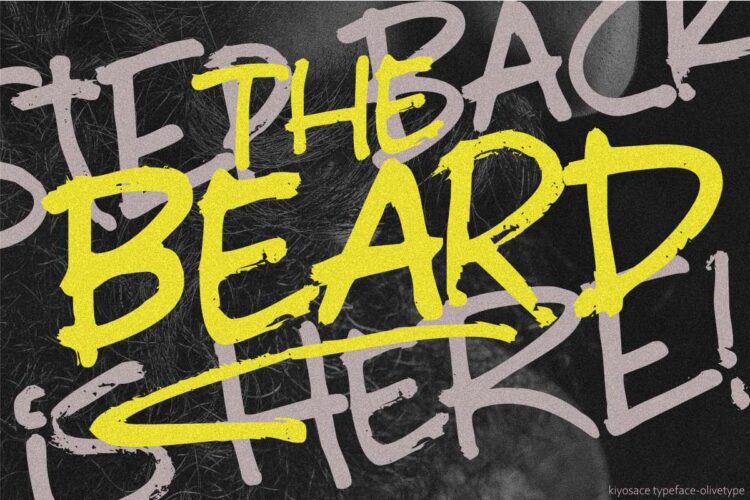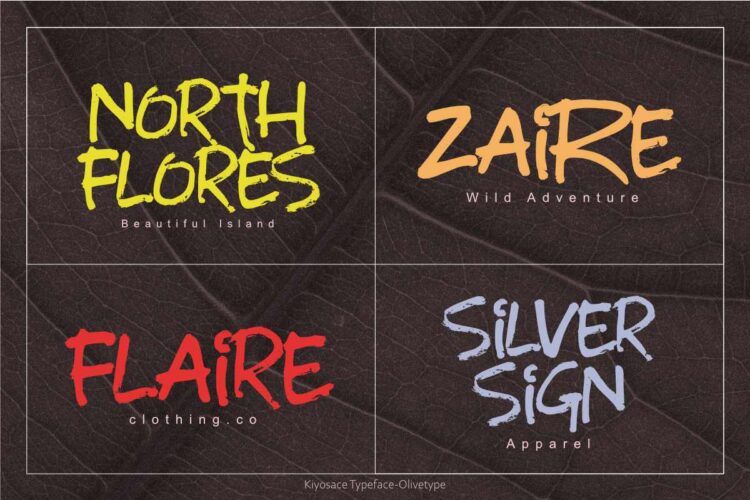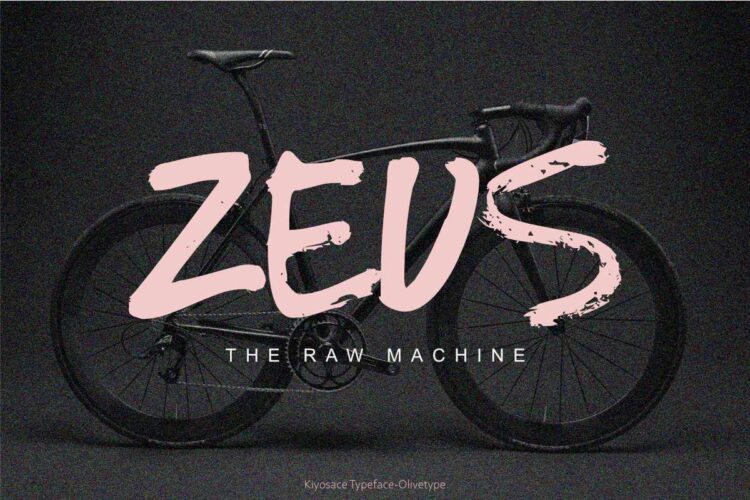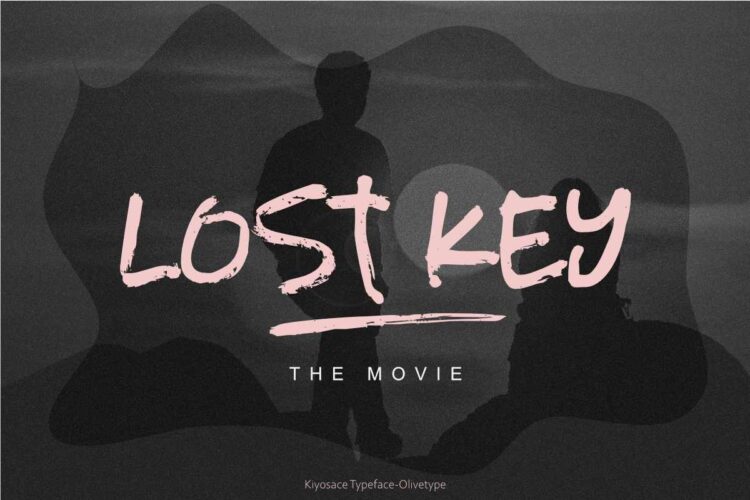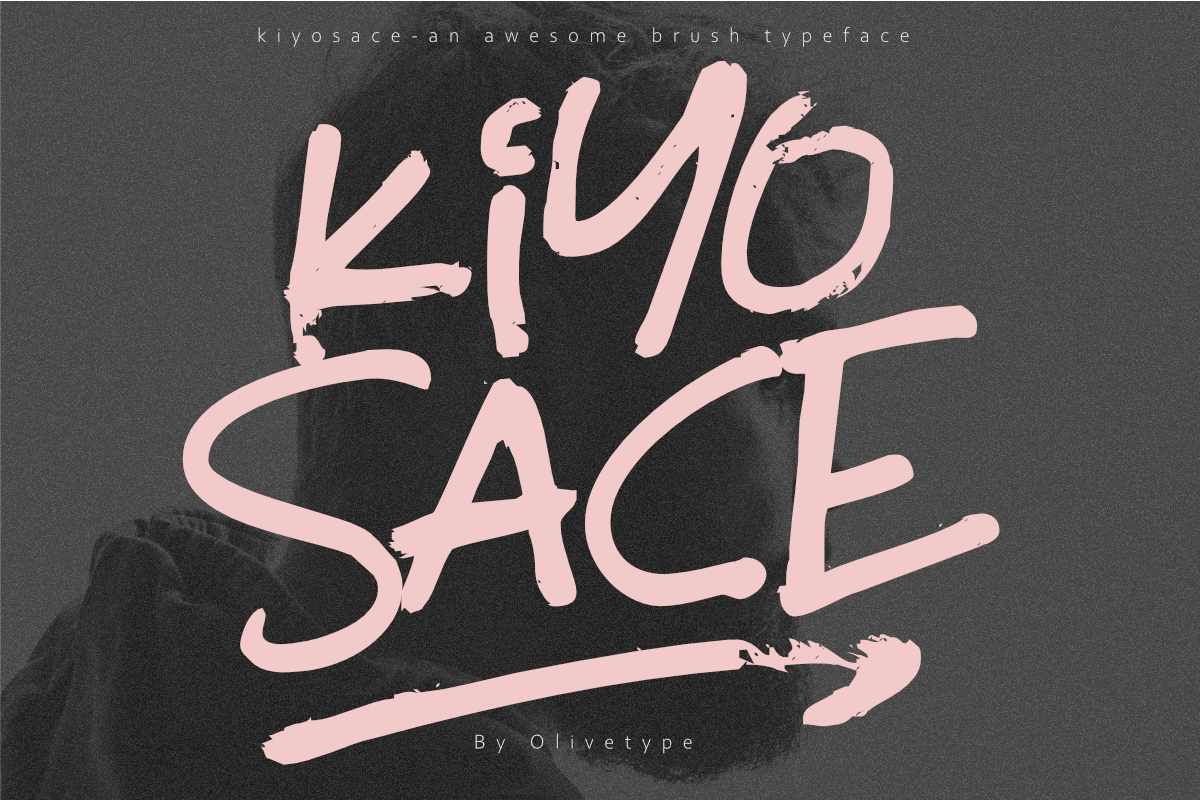
Kiyosace is an authentic brush font with cool textures and a natural feel. It’s perfect for posters, headlines, and logotypes. Its rough and tough style gives it a unique authenticity that sets it apart from the rest.
Kiyosace font includes :
- Standard Latin Uppercase and Lowercase
- Swashes